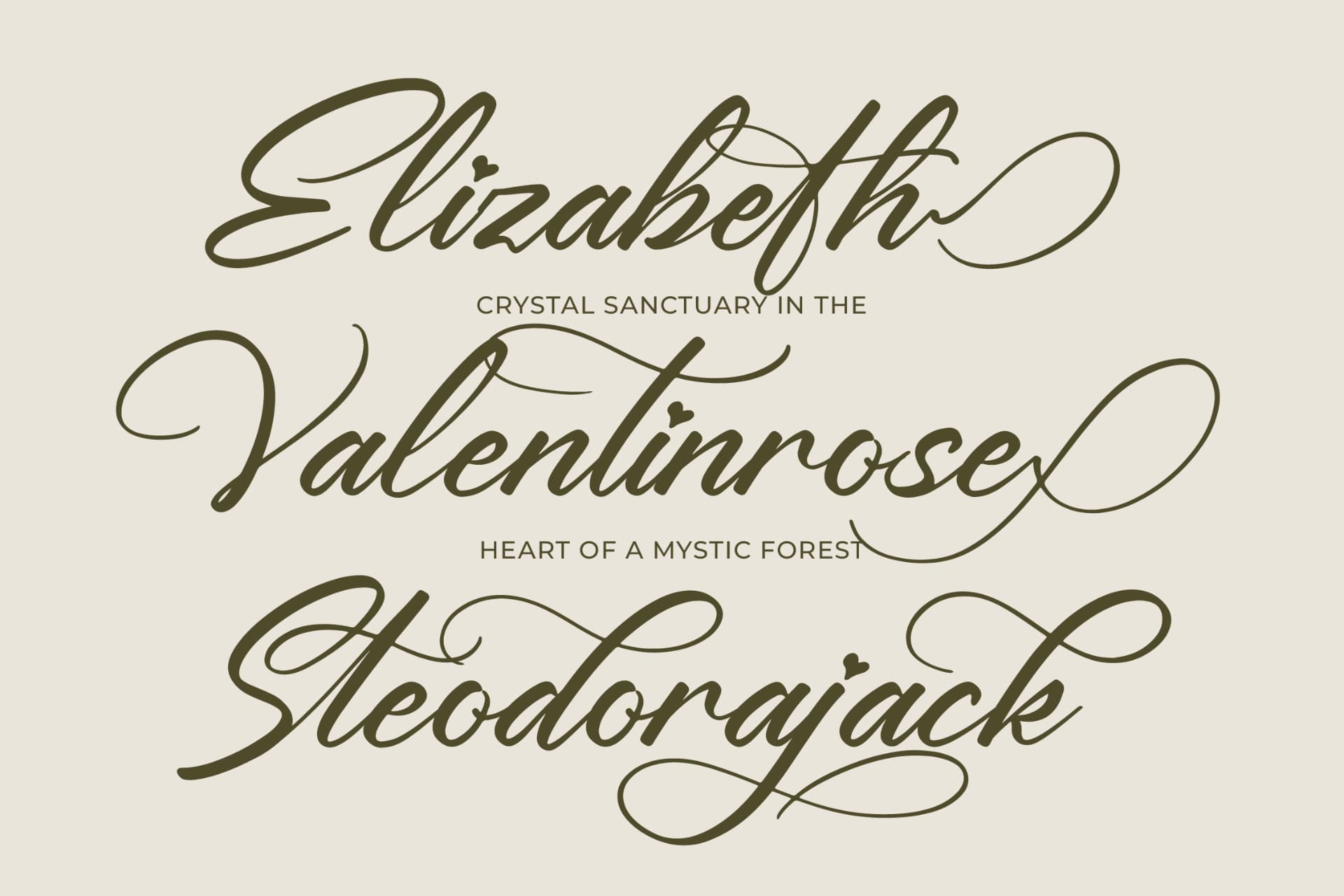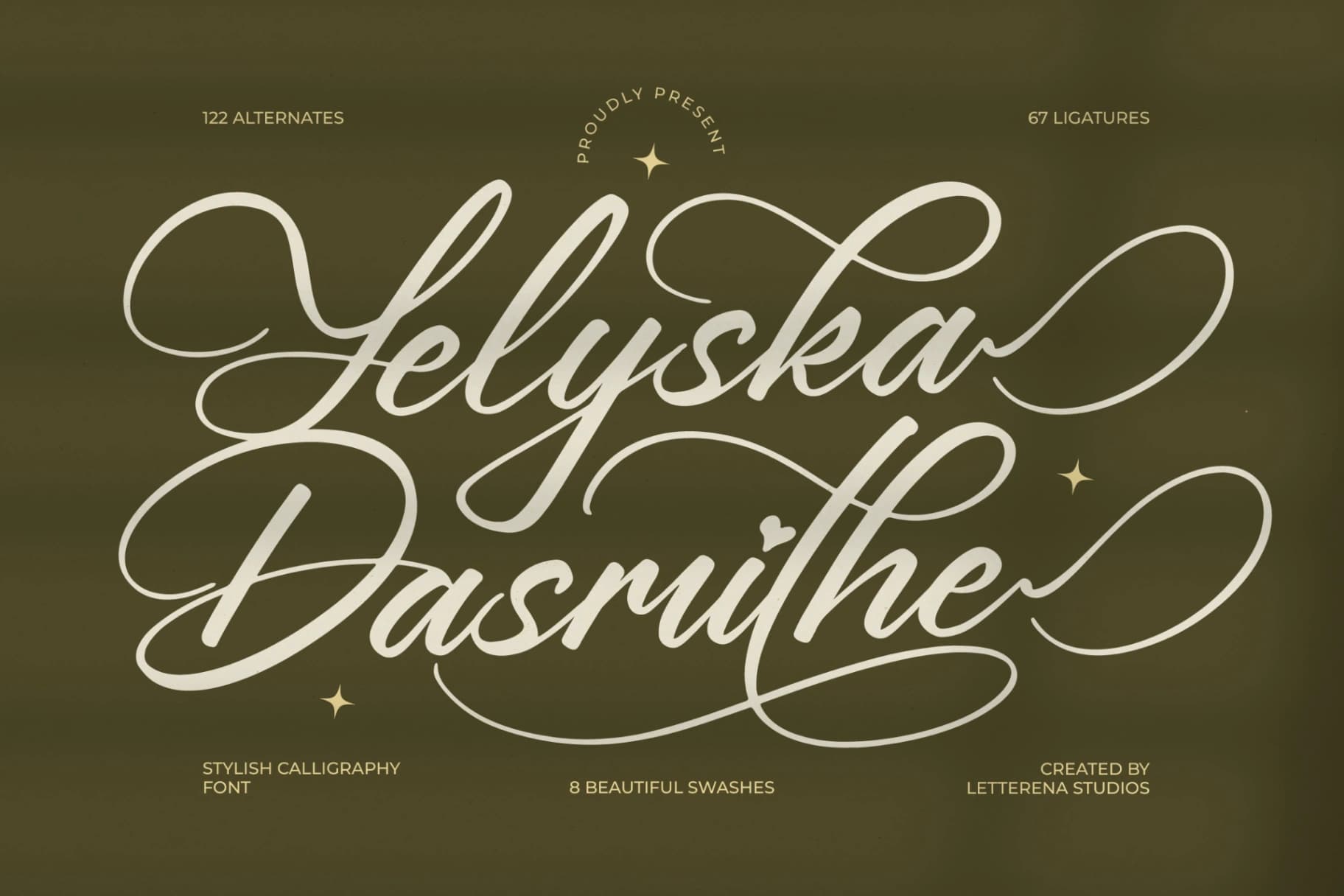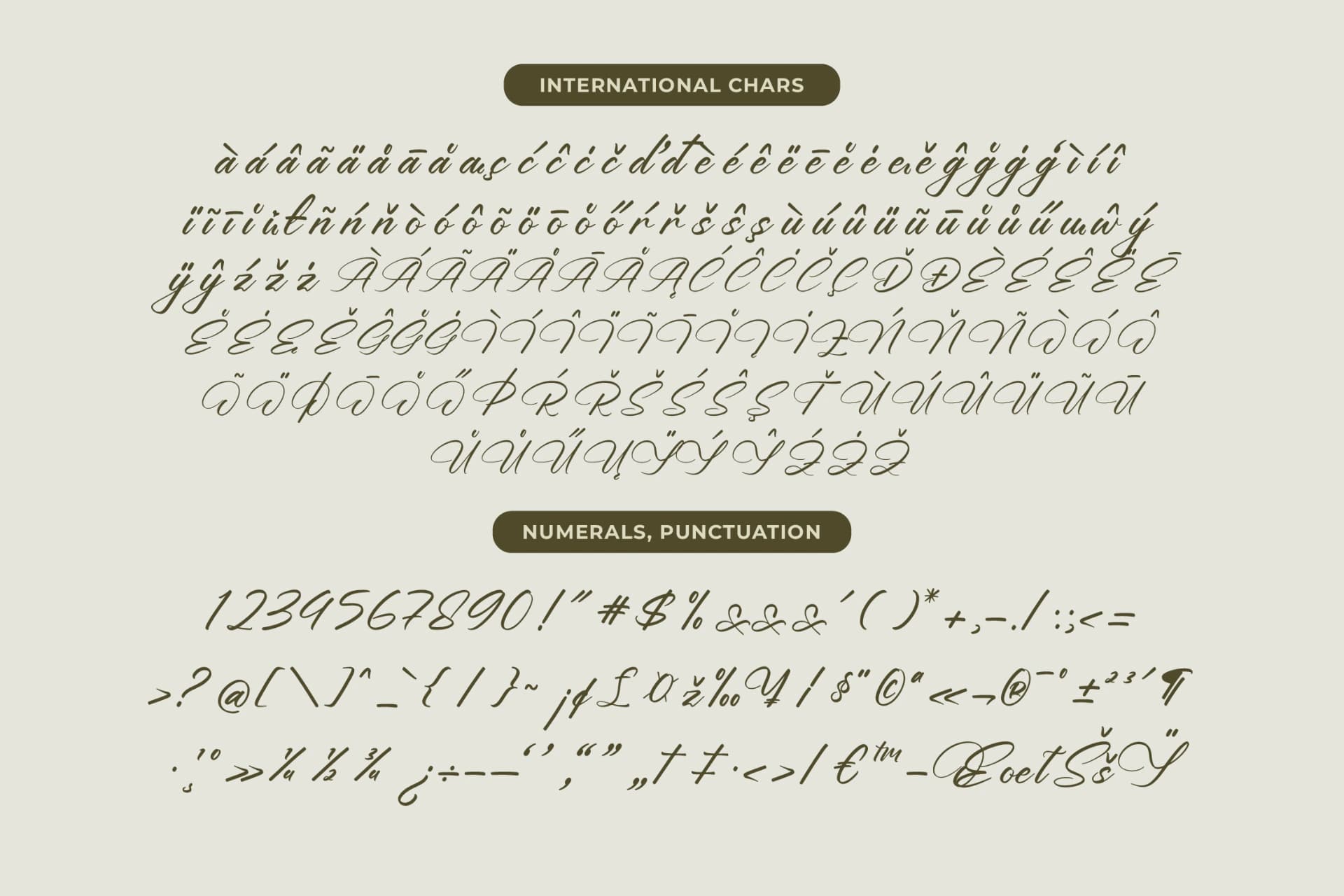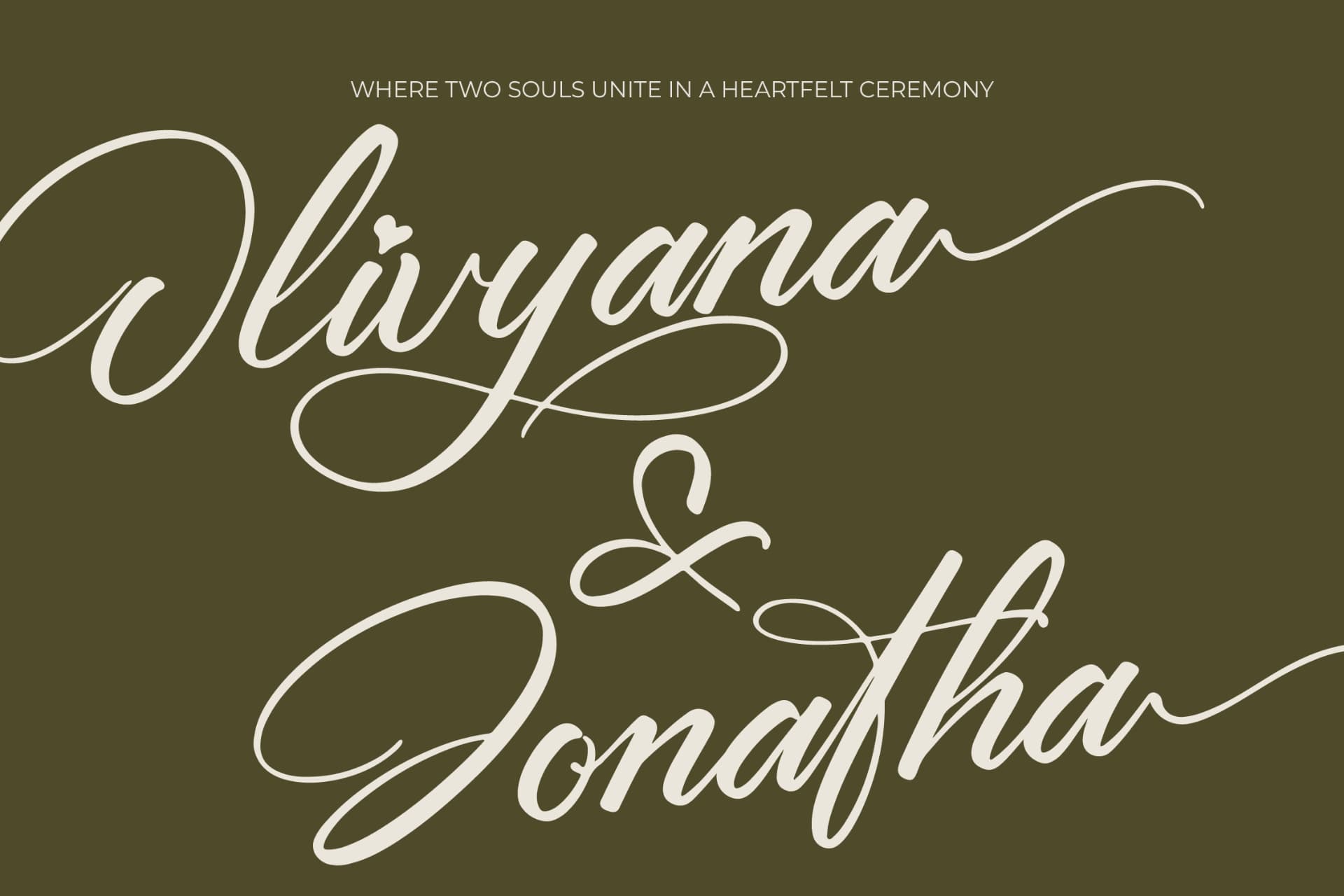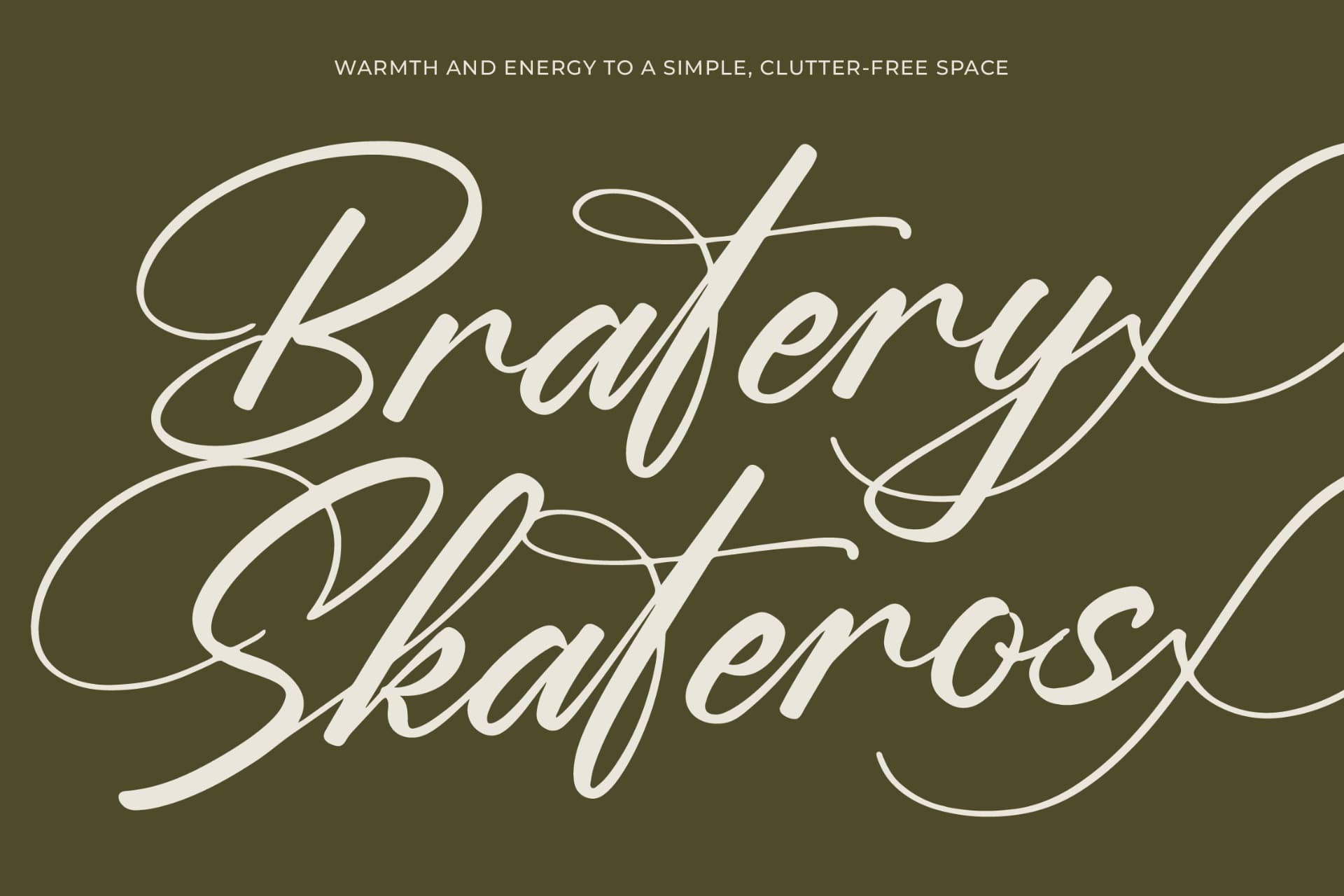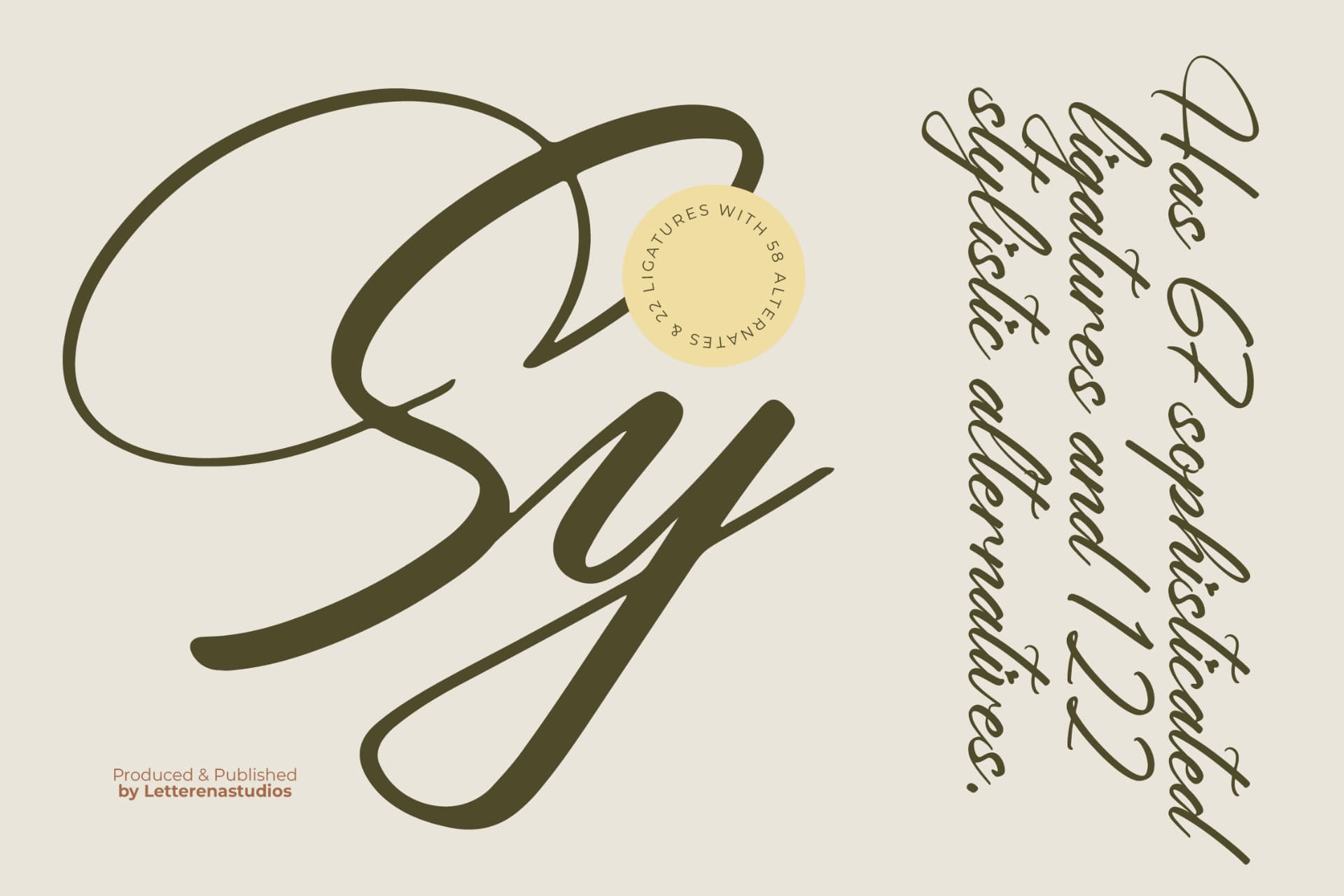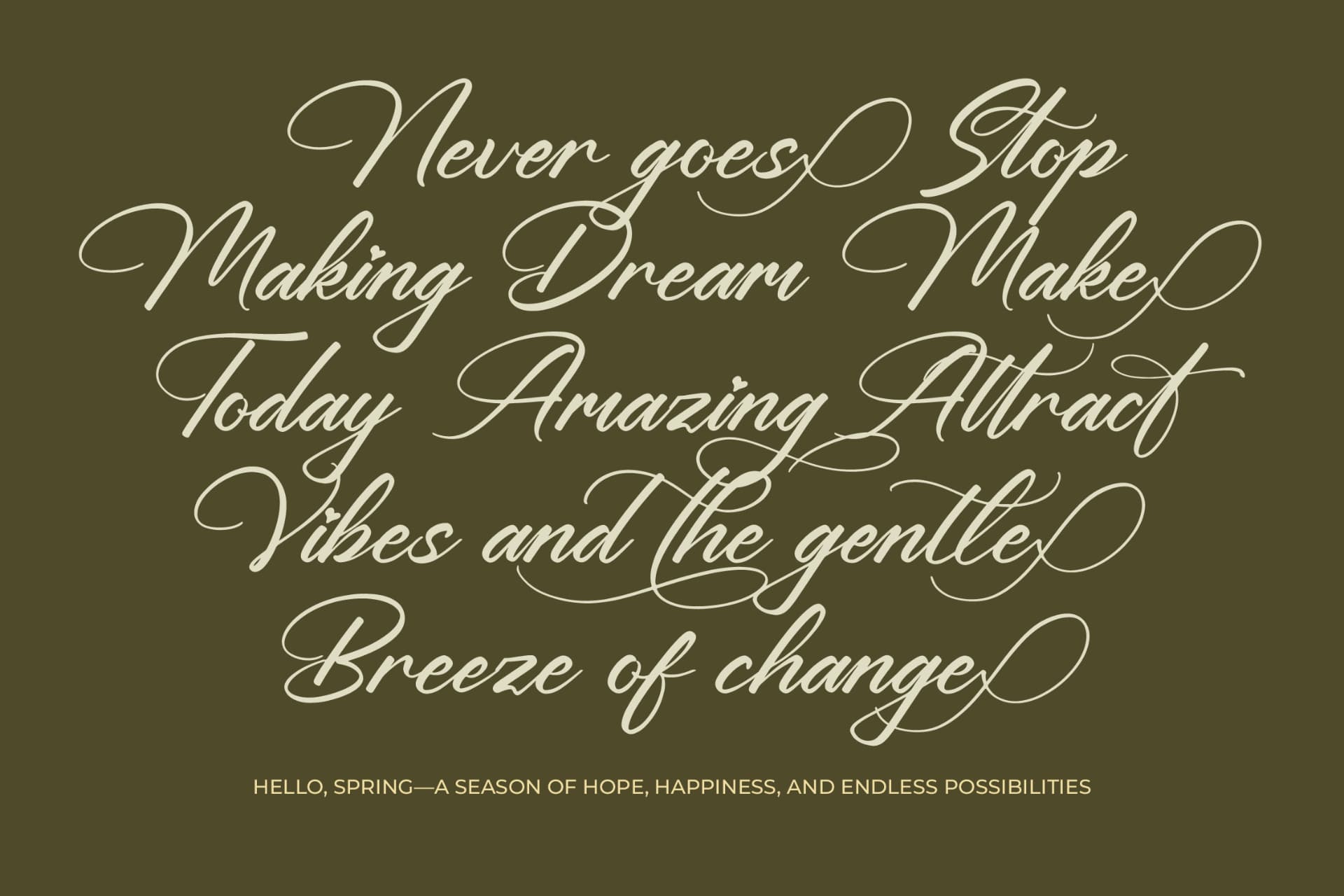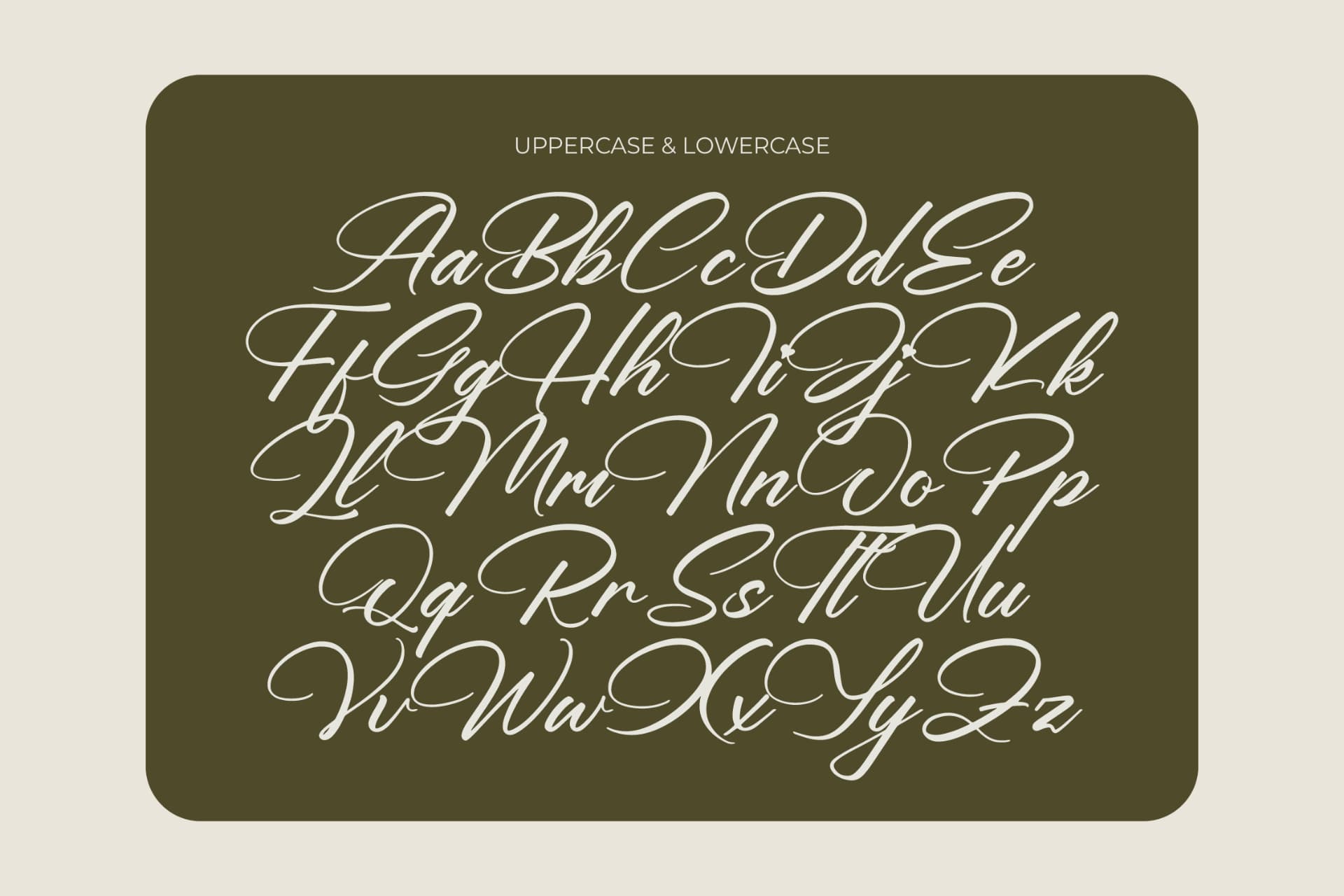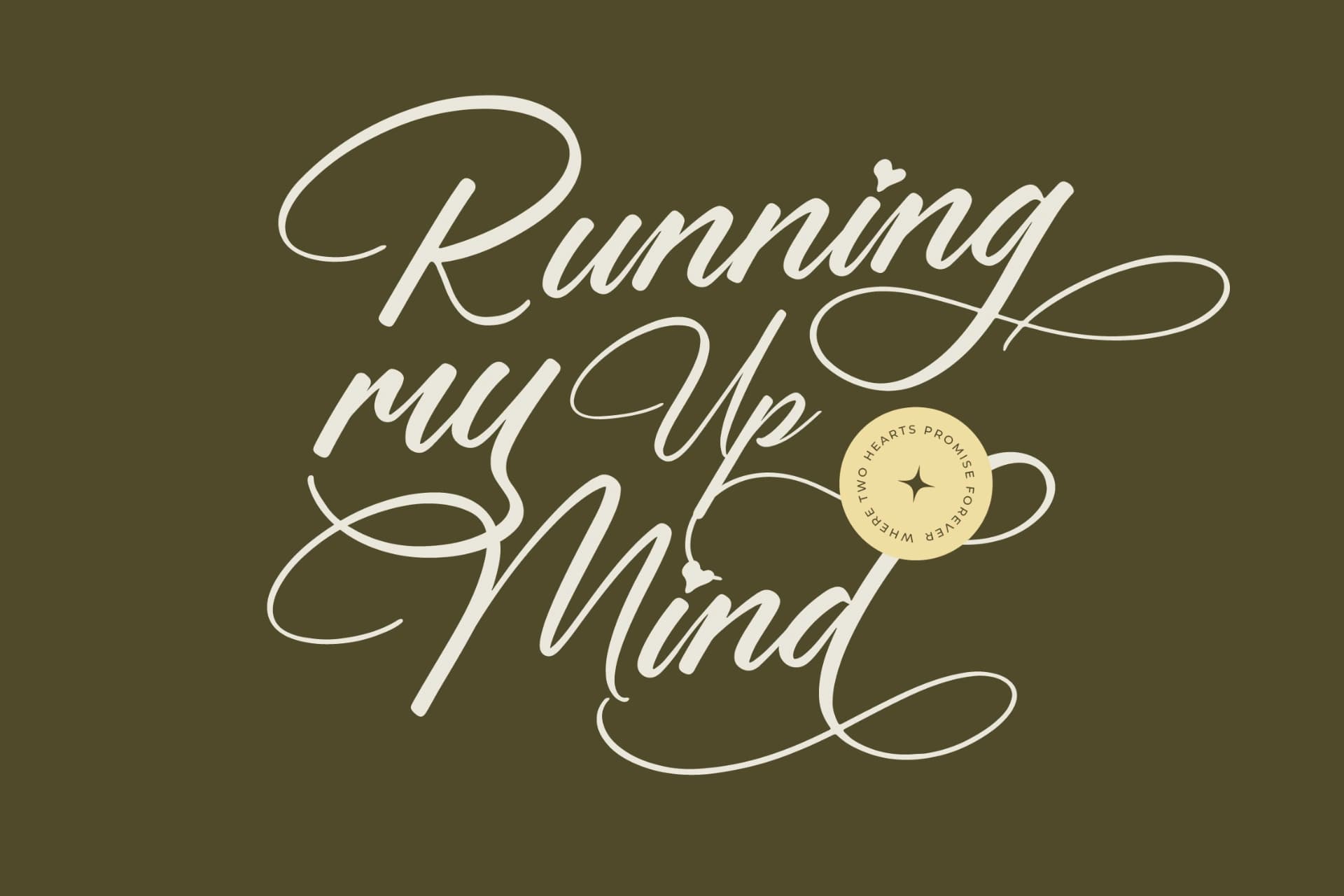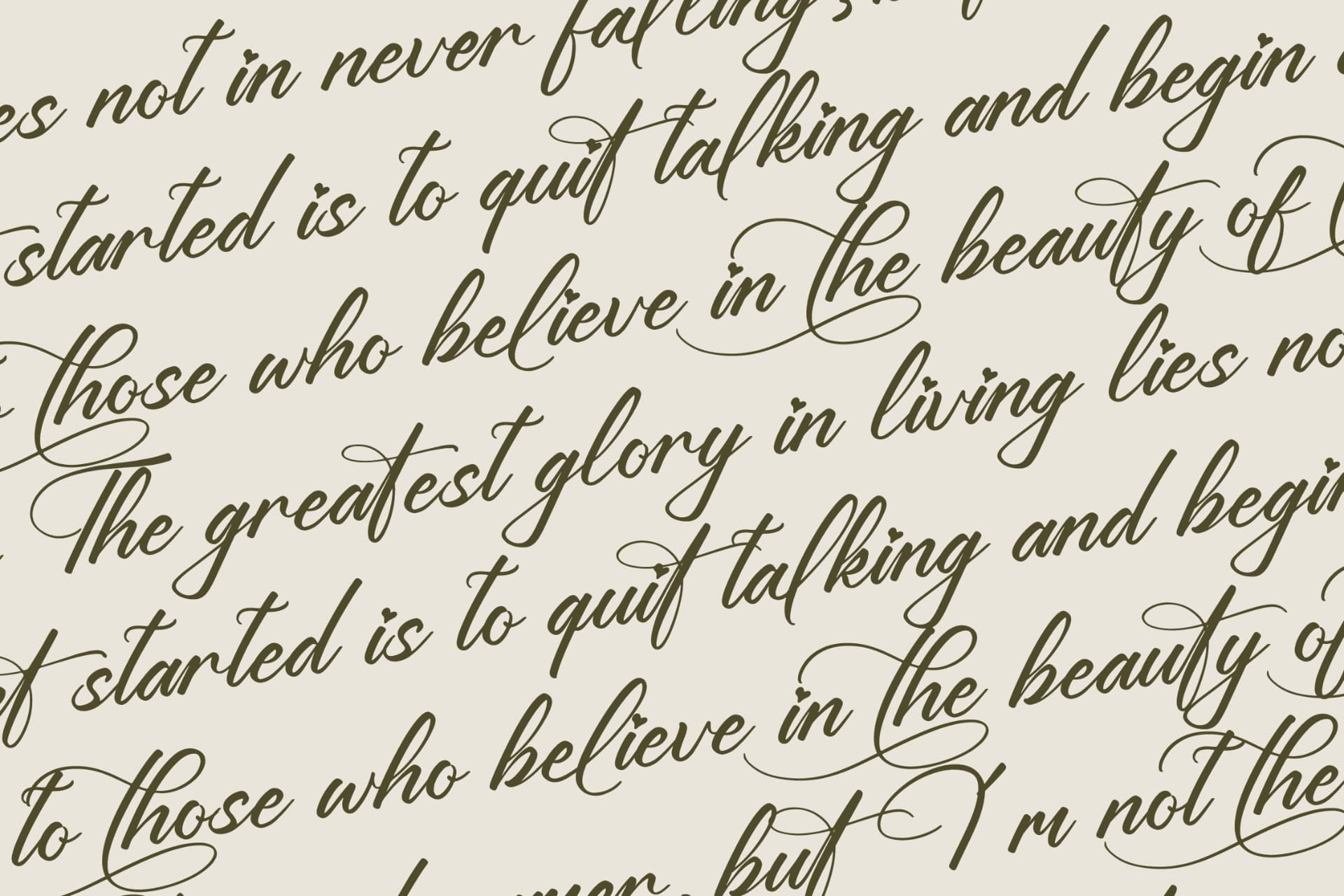
Yeliska Dasmithe - Stylish Calligraphy Font
Elevate your design projects with handwriting elegance embodied in Yeliska Dasmithe - Stylish Calligraphy Font. This luxurious script typeface features stunning, high-contrast strokes and fluid connectivity, instantly transforming standard text into a bespoke visual statement. Designed for immediate impact, its generous swashes and refined loops capture the essence of artisanal craftsmanship, guaranteeing a premium, handwritten feel that demands attention in any application.
Unlock unparalleled design freedom through a massive library of OpenType features. Yeliska Dasmithe - Stylish Calligraphy Font includes 122 unique alternates and 67 expressive ligatures, providing the typographic designer with endless possibilities for customization. Whether crafting a subtle brand signature or a dramatic headline, these extensive features allow you to avoid repetition and create truly unique typographic lockups, maintaining flow and authenticity across every character combination.
Expand your brand's international footprint effortlessly with this robust typeface. With its extensive multilingual support, Yeliska Dasmithe - Stylish Calligraphy Font adapts seamlessly across global markets, making it incredibly versatile for international projects. This ensures that the typeface maintains its elegance and professional integrity regardless of language, confirming its status as a reliable choice for worldwide commercial use and consistent brand messaging.
The definitive choice for luxury visual identity, Yeliska Dasmithe - Stylish Calligraphy Font is perfect for high-end branding, elegant wedding invitations, premium product packaging, exclusive event invitations, and editorial mastheads where sophistication is key. Its polished aesthetic is meticulously tuned to convey status and quality, making it an essential asset for designers seeking to impart a feeling of exclusive artistry and timeless grace into their most important client work.